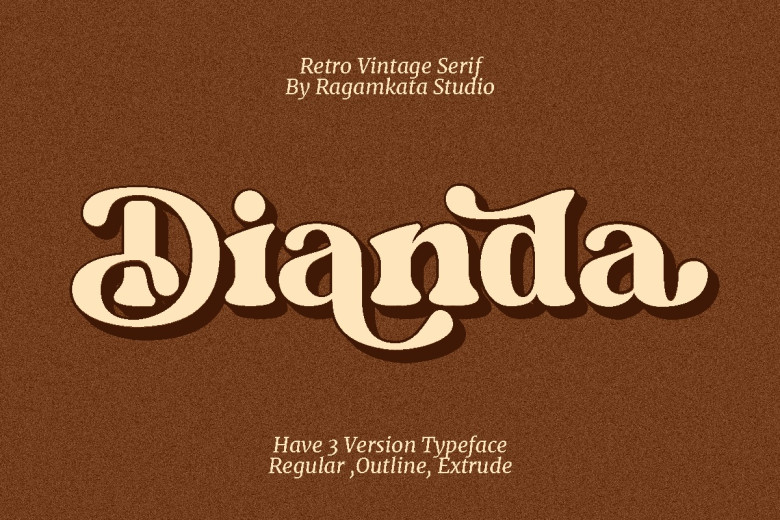
Dianda Font
Dianda is a font that has a unique classic type of look that is particularly on the bolder side of font categories. Perfect for logos, magazines and anything that you will share on Facebook, Twitter and other social media platforms. It supports unique lowercase and uppercase and numbers, punctuation, and multilingual letters, alternates, and ligatures.
Dianda Serif Font